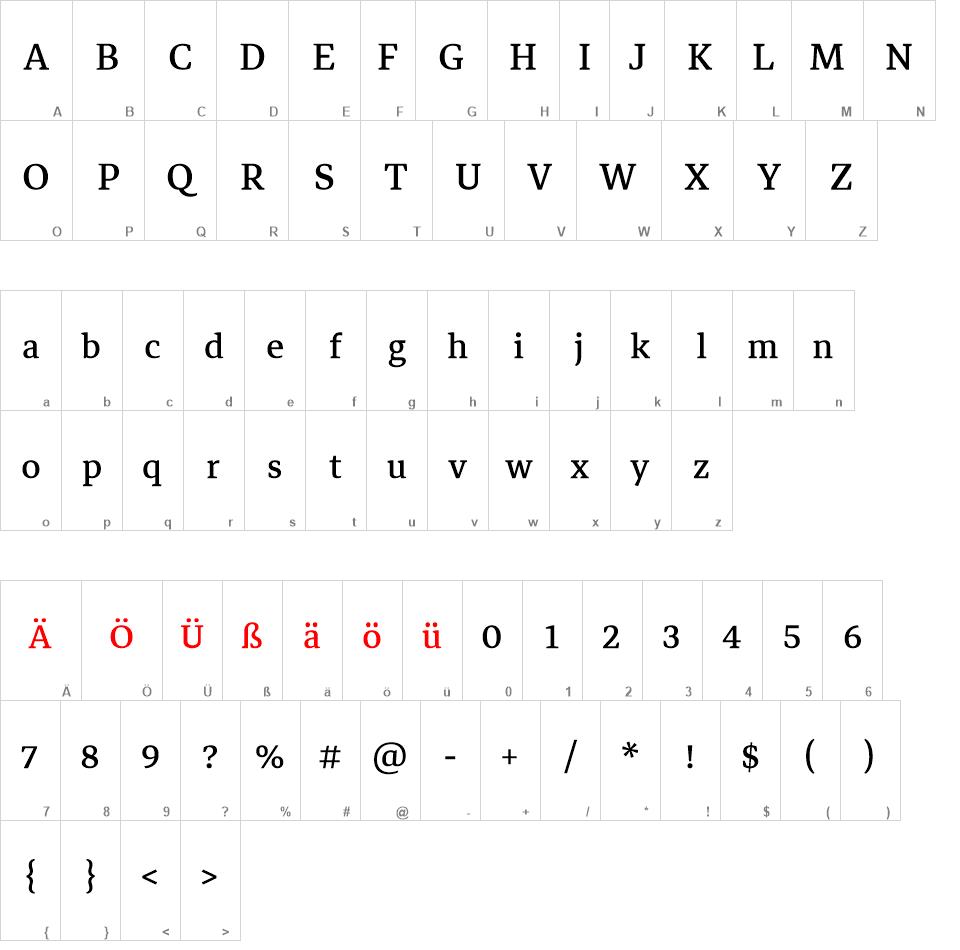
Markazi
This typeface design was inspired by Tim Holloway’s Markazi typeface, with his encouragement, and initiated by Gerry Leonidas as a joint University of Reading and Google project. The Arabic typeface, designed by Borna Izadpanah and design directed by Fiona Ross, is a text typeface with moderate contrast. It takes its cues from the award-winning Markazi typeface, affording a contemporary and highly readable typeface. The complementary Latin typeface was designed by Florian Runge. It keeps in spirit with its Arabic counterpart, echoing key design characteristics while being rooted in established Latin traditions. It is an open and clear design with a compact stance and an evenly flowing rhythm. Both Arabic and Latin are available in four weights with extended language support suited for print and screen.